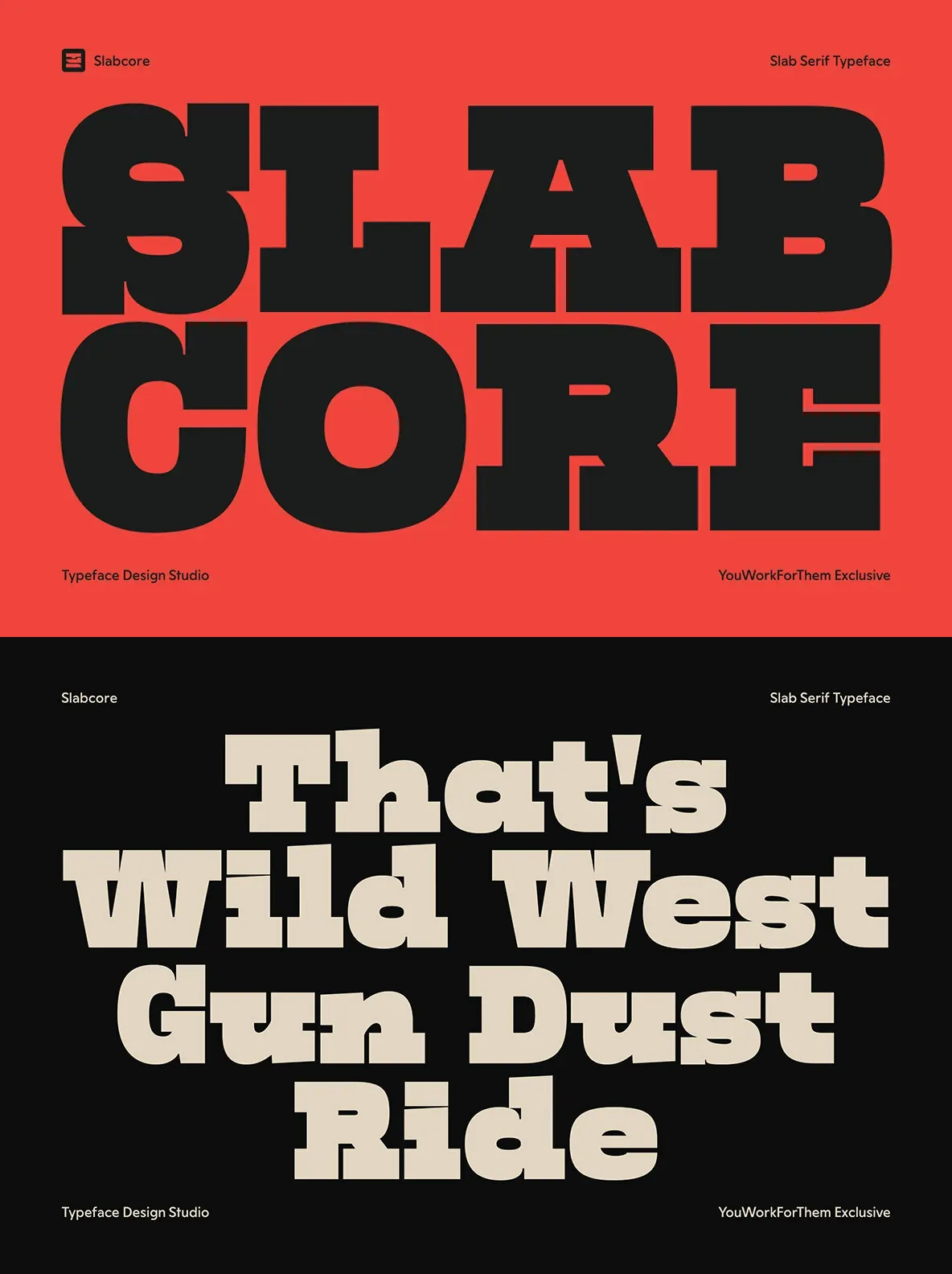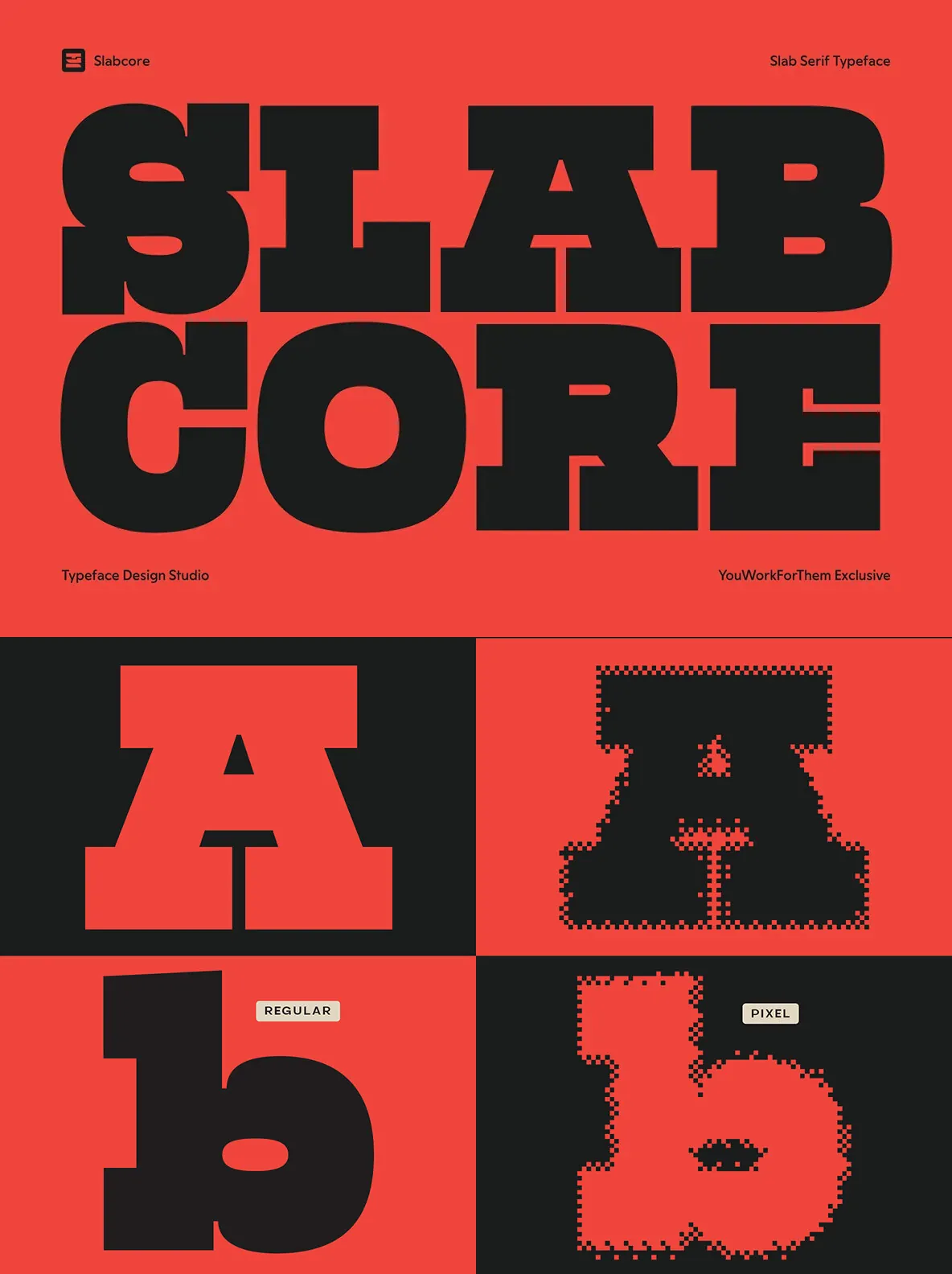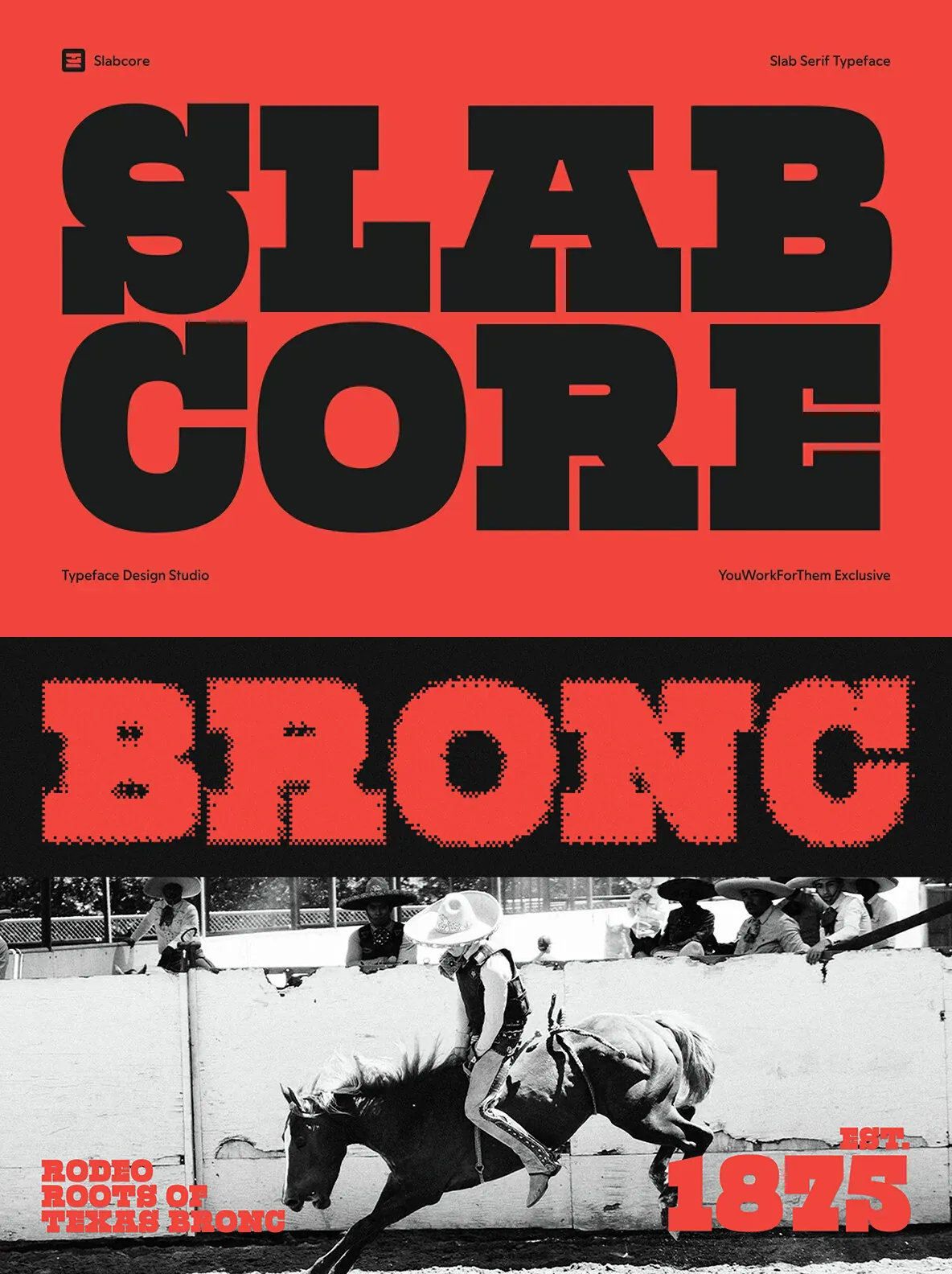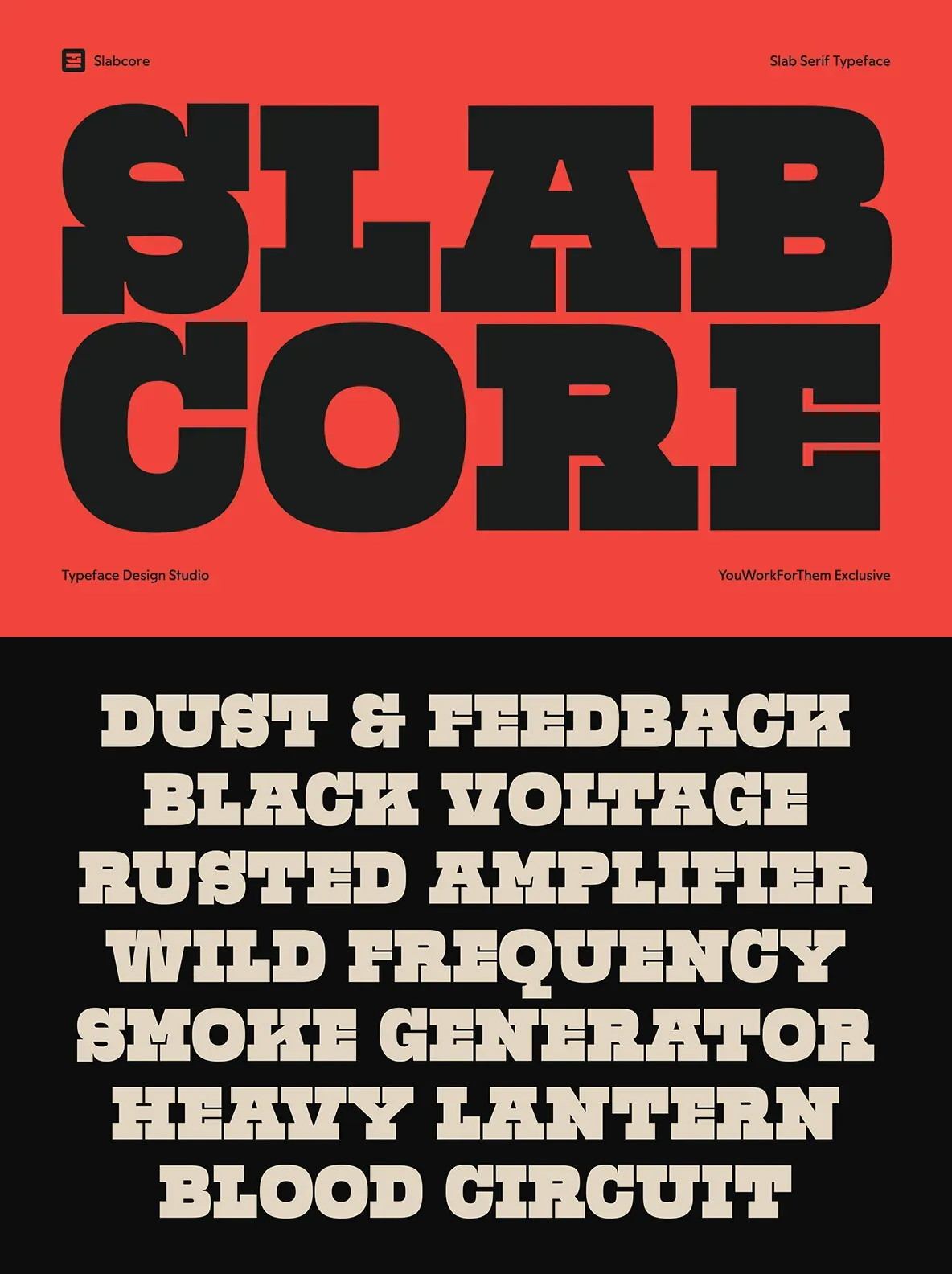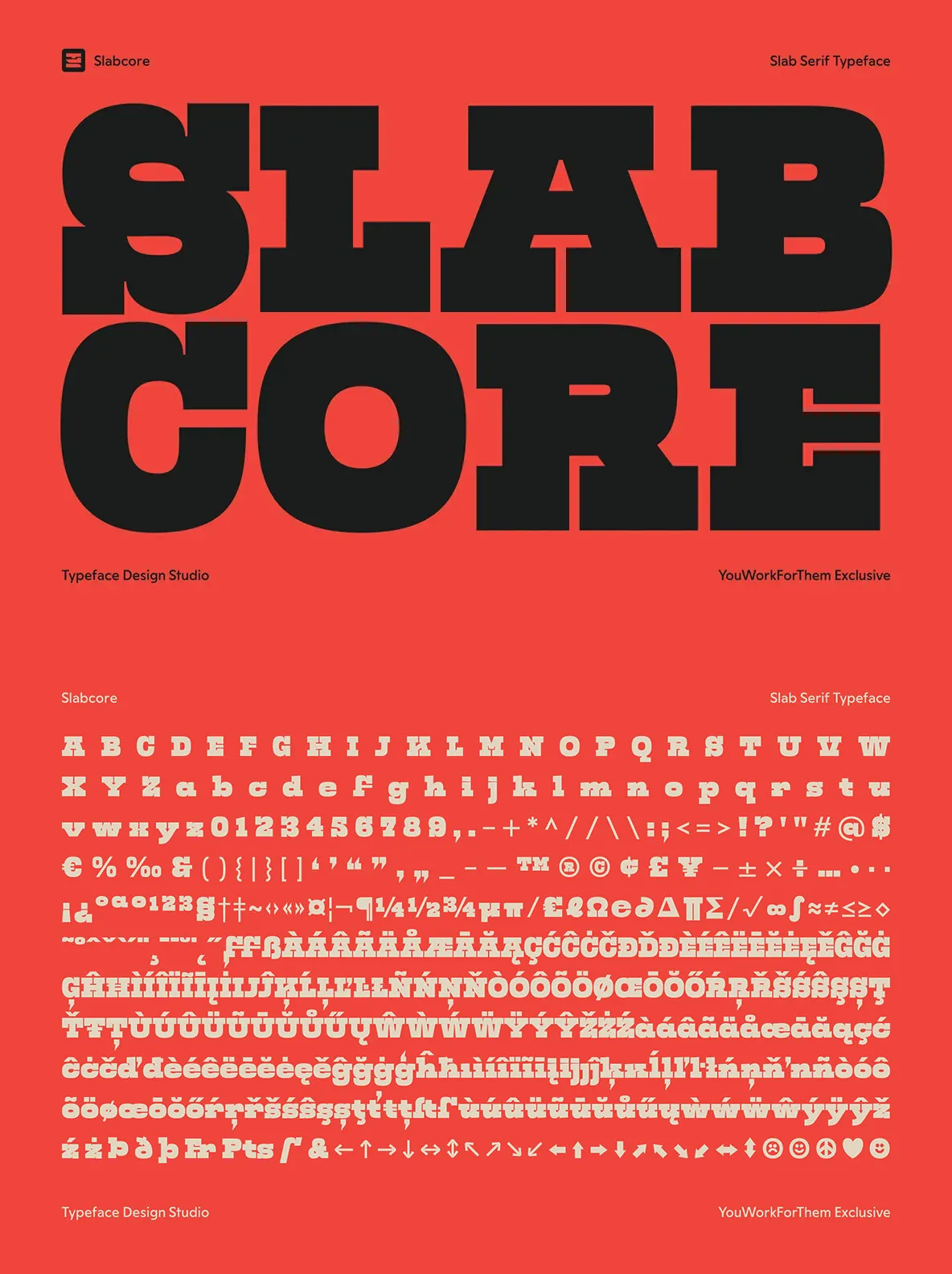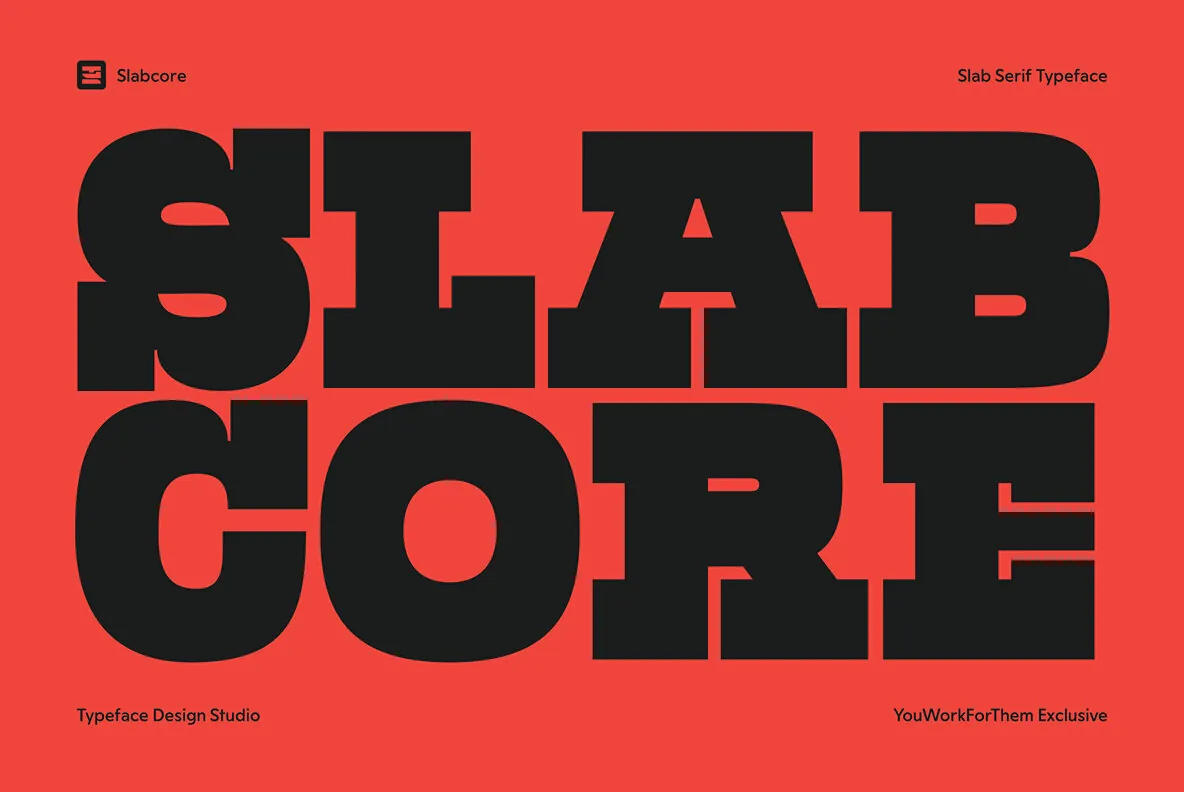
Slabcore: Digital-Ready Slab Serif With Pixel Precision
Slabcore is a slab serif font designed for clarity and modern versatility. Merging the robust weight of classic American slabs with a clean pixel structure, this typeface speaks directly to today’s digital workflows. The balance it strikes caters to designers seeking a typeface that works effortlessly across motion graphics, editorial headlines, and bold visual identities.
It offers two distinct styles: a traditional slab serif and a pixel-based bitmap variant. Each one is carefully composed to serve different creative needs—while the clean variant emits solidity and presence, the pixel style introduces subtle texture, adding depth to digital compositions. This duality allows designers to shift visual emphasis without switching typefaces.
OpenType Features & More:
Includes 417 glyphs
Case-sensitive forms
Fractions and ordinals
Historical and localized forms
Standard ligatures
Stylistic alternates
Superscripts
Slabcore’s construction is deliberate, shaped by a Western serif influence but deliberately free of nostalgia. The pixel detailing adds a technical edge, suiting projects that benefit from a bold, contemporary type system. Designed with professional use in mind, every glyph is optimized for on-screen clarity—ideal for designers working in motion, social media, and digital branding. Whether used for title cards, digital campaigns, or visual identities demanding strong contrast, Slabcore provides a confident voice. Its precise curves and structural rigor yield a typeface ready for both current and next-generation design environments.